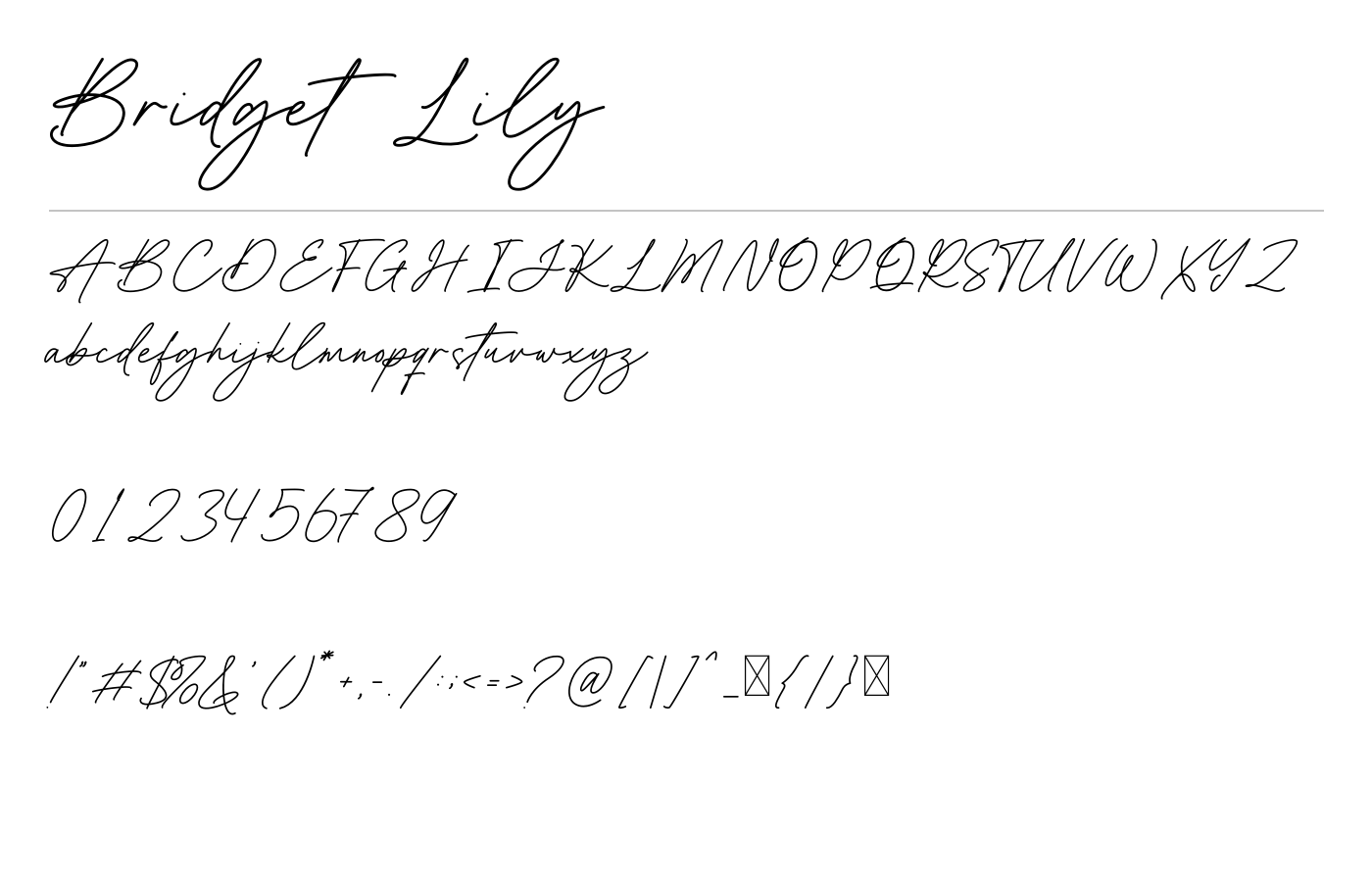
Bridget Lily is a delicate, elegant script font with thin, flowing strokes that mimic natural handwriting, offering a light and airy feel. Its tall, slender letterforms and smooth connections make it perfect for feminine branding, wedding invitations, and stylish editorial designs where a personal, graceful touch is desired. This font brings a sense of sophistication and charm, enhancing any project that aims to convey warmth and refinement.
Bridget Lily Font
About Bridget Lily Font
| Font family | Bridget Lily Font |